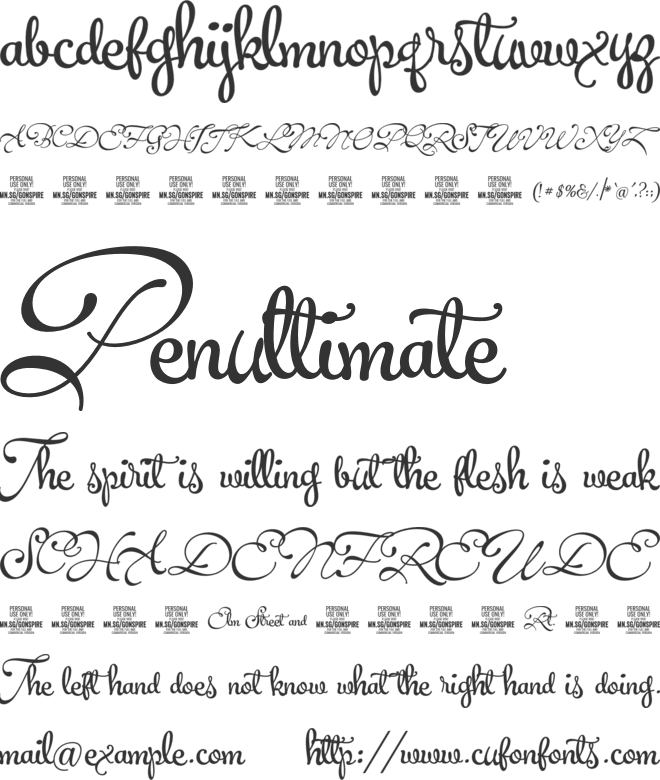
Gonspire Script PERSONAL USE Font Family
Gonspire Script is a typeface with elegant swirls and stylish curves that exude beauty.
This decorative masterpiece is adorned with intricate swashes and exquisite ornaments, adding to its lovely design.
To add swashes to a word, simply use an underscore (_) anywhere in the word.
For example: Love_rose
To add multiple swashes, use multiple underscores.
For example: Wonder________woman